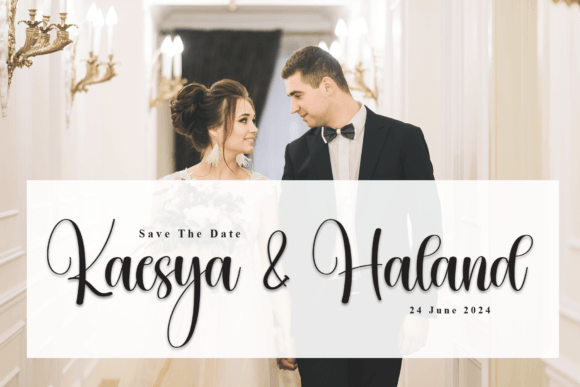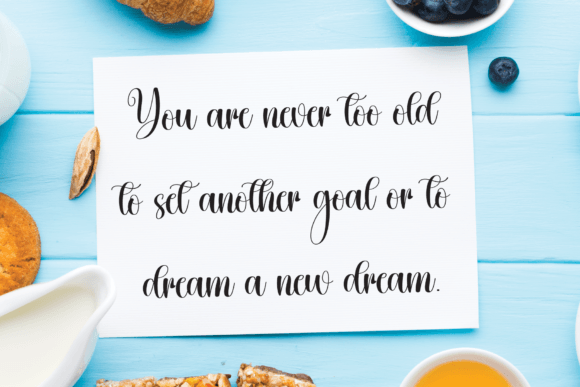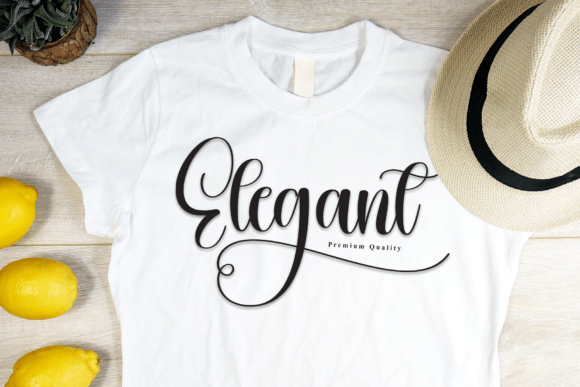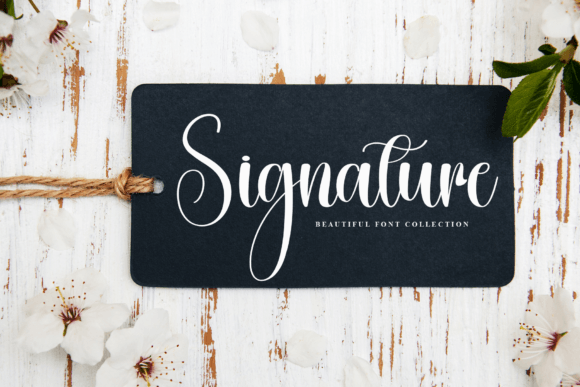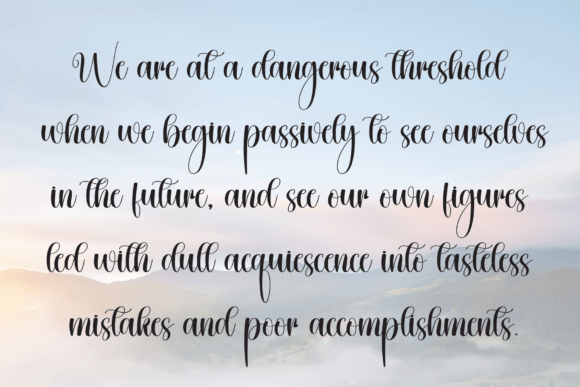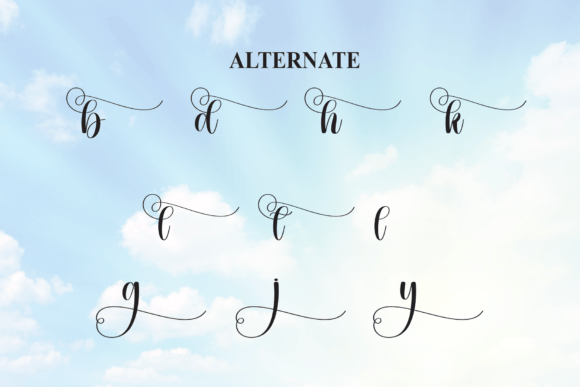
Introducing Brightness Font: The Sweet and Friendly Handwritten Font for Your Creative Projects
Are you a designer or crafter looking for a font that can add a personal touch to your creative projects? Look no further than Brightness Font! This sweet and friendly handwritten font is perfect for a wide range of designs, from digital art to craft projects. In this article, we’ll take a closer look at Brightness Font, its features, and how you can use it to take your designs to the next level.
What is Brightness Font?
Brightness Font is a beautiful, handwritten font that is designed to bring a touch of warmth and personality to your designs. Its natural and unique style makes it incredibly versatile, and it’s perfect for a wide range of projects, from invitations and greeting cards to digital art and craft projects.
Features of Brightness Font
So, what makes Brightness Font so special? Here are just a few of its key features:
- Handwritten style: Brightness Font has a beautiful, handwritten style that is perfect for adding a personal touch to your designs.
- Natural and unique: The font’s natural and unique style makes it incredibly versatile, and it’s perfect for a wide range of projects.
- Easy to read: Despite its handwritten style, Brightness Font is easy to read, making it perfect for designs that require a lot of text.
- Highly customizable: With Brightness Font, you can easily customize the font to fit your design style, from changing the color and size to adding effects and textures.
Uses for Brightness Font
So, what can you use Brightness Font for? The possibilities are endless! Here are just a few ideas to get you started:
- Digital art: Brightness Font is perfect for digital art projects, from illustrations and graphics to animations and videos.
- Craft projects: If you’re a crafter, Brightness Font is a great choice for projects like scrapbooking, card making, and journaling.
- Invitations and greeting cards: The font’s handwritten style makes it perfect for invitations and greeting cards, adding a personal touch to your correspondence.
- Branding and marketing: Brightness Font can also be used for branding and marketing projects, from logos and business cards to social media graphics and advertisements.
Tips for Using Brightness Font
Here are a few tips for using Brightness Font in your designs:
- Experiment with different colors: Brightness Font looks great in a variety of colors, so don’t be afraid to experiment and find the perfect color for your design.
- Mix and match with other fonts: Brightness Font pairs well with other fonts, so try mixing and matching it with different fonts to create a unique look.
- Add effects and textures: To give your design an extra boost, try adding effects and textures to Brightness Font, such as glitter, watercolor, or distressed effects.
In conclusion, Brightness Font is a sweet and friendly handwritten font that is perfect for designers and crafters looking to add a personal touch to their creative projects. Its natural and unique style makes it incredibly versatile, and it’s perfect for a wide range of designs. With its ease of use, customizability, and endless possibilities, Brightness Font is a must-have font for any designer or crafter.